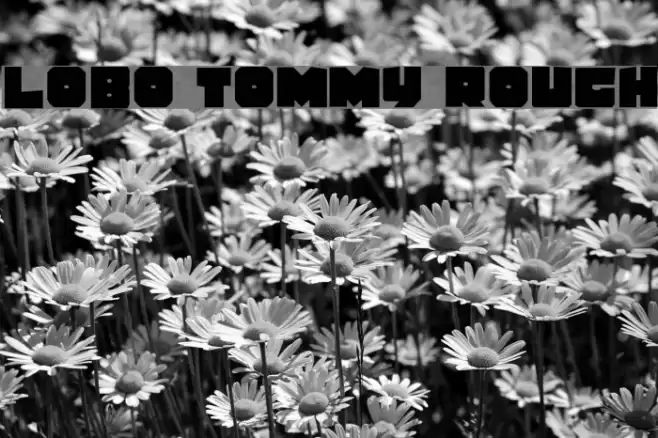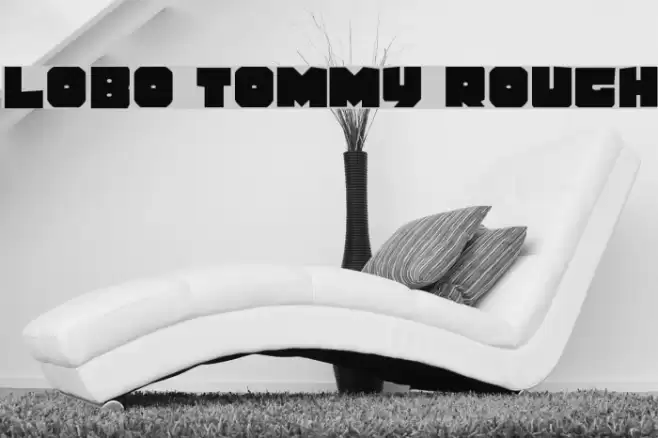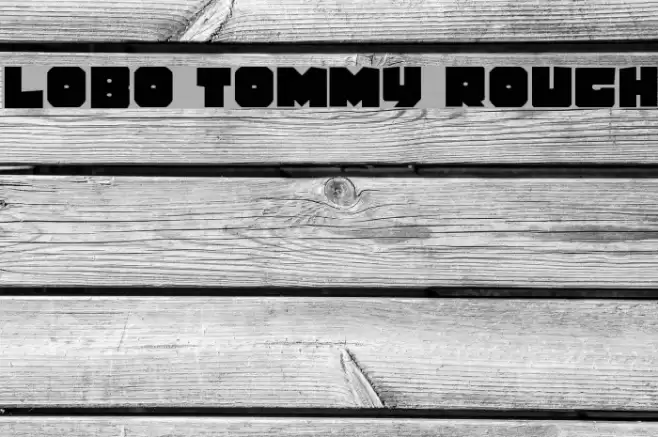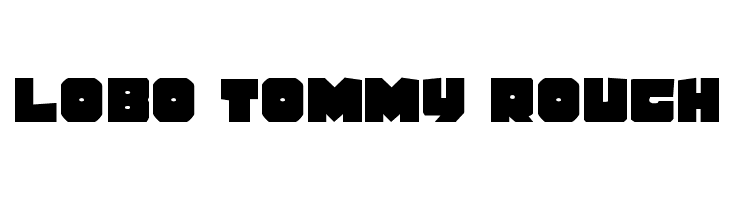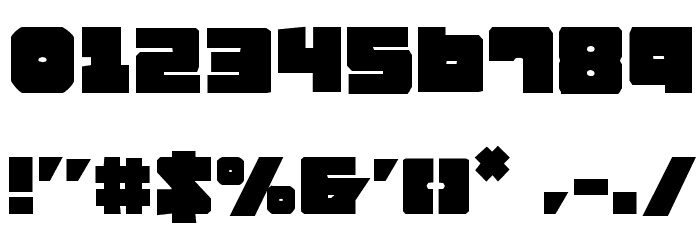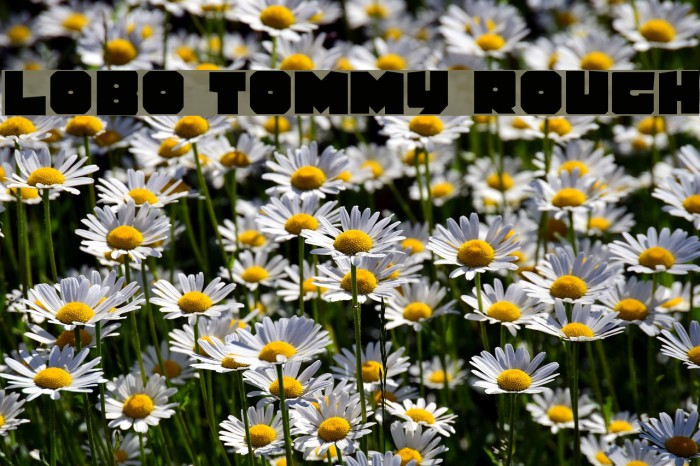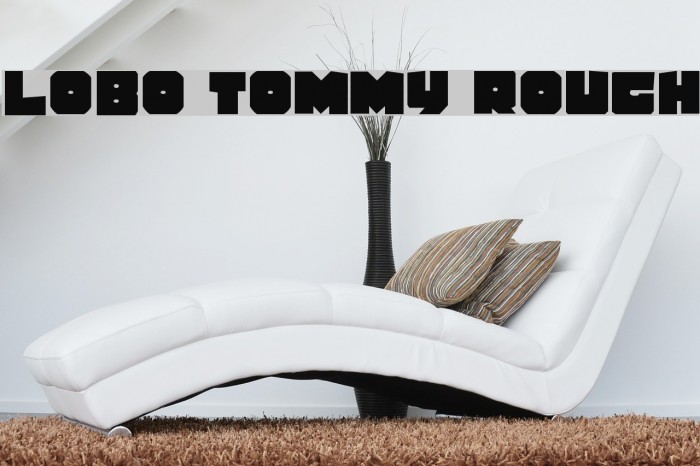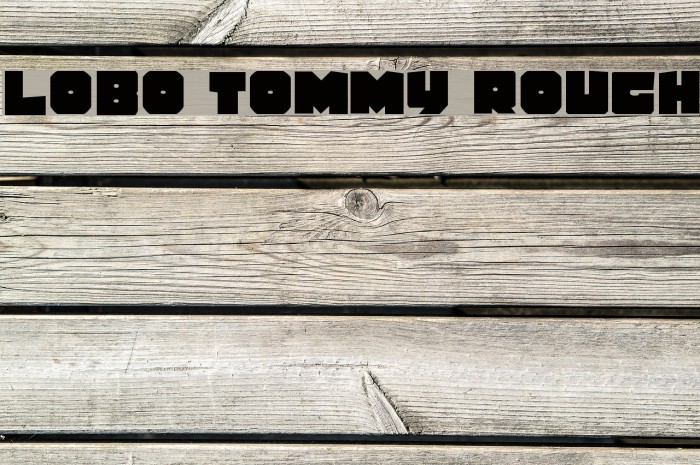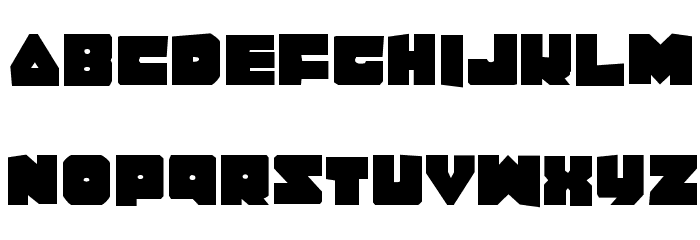
Lobo Tommy Rough Font
Lobo Tommy Rough Description
This font features a bold, geometric style with a rough, textured appearance. The characters are blocky and angular, giving it a strong, impactful presence. Each letter is distinct, with sharp edges and a slightly distressed look that adds a rugged charm. The uppercase and lowercase letters maintain a consistent style, while the numerals and special characters complement the overall design. This font is ideal for projects that require a bold statement or a vintage, industrial feel.
A bold, geometric font with a rough, textured appearance from Uncategorized fonts.
- Proposed Projects: Ideal for posters, logos, branding, and headlines that need a strong, impactful presence.
- Overall Style: Vintage, Industrial